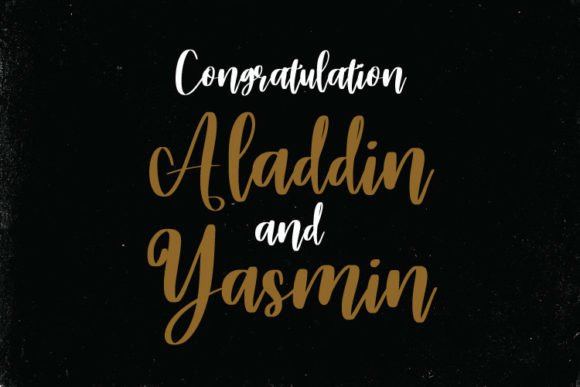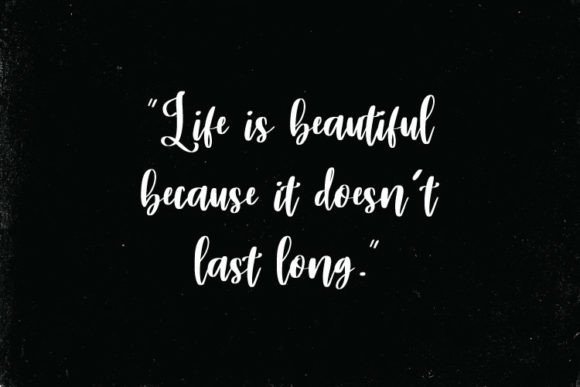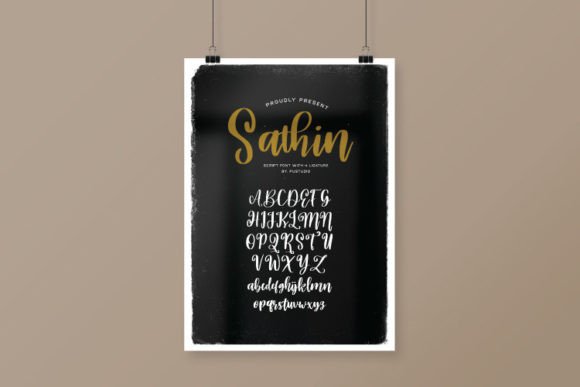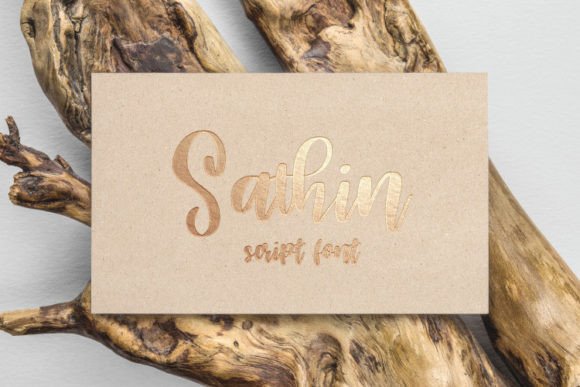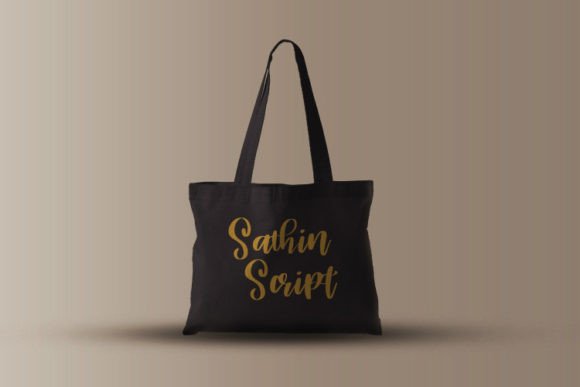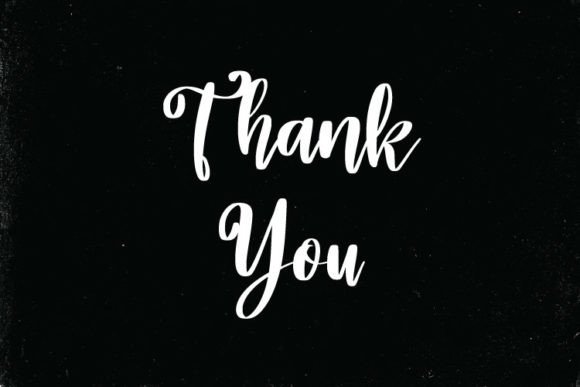
Introduction to Sathin Font
Have you ever sat down with a blank piece of paper, a pen, and a spark of creativity, only to be interrupted by the realization that you need to perfect that delicate handwritten touch? As designers, we’ve all been there – searching for that elusive font that captures the essence of elegance and charm. Enter Sathin Font, a game-changing design resource that brings a high-quality, handwritten feel to your creative projects.
Whether you’re crafting wedding invitations, designing quotes, or creating logos, Sathin Font is the perfect companion for any project that requires a touch of sophistication. With its free download option and transparent background, this versatile font is a design treasure trove waiting to be explored.
In this article, we’ll delve into the world of Sathin Font, uncovering its unique features and showcasing its value as a valuable resource for designers.
Key Features of Sathin Font
- High-quality design resource with a unique, elegant style suitable for creative projects
- Features a transparent background, allowing for seamless integration with any design
- Includes a wide range of characters, including uppercase and lowercase letters, numbers, and punctuation
- Designed with a high-resolution (300 DPI) for use in professional printing and digital applications
- Perfect for designers and artists looking for a high-quality, versatile font for their projects
- Can be used for a variety of purposes, from headings and titles to body text and creative compositions
Honest Review: Sathin Font
- What works well: ✨ The Sathin Font is a beautiful, elegant script font that adds a touch of sophistication to any design. The font’s unique characteristics make it perfect for creative projects that require a personal touch.
- What works well: ✨ The font’s transparent background allows for seamless integration with various design elements, making it a valuable resource for designers.
- What works well: ✨ The font is highly customizable, allowing designers to adjust the size, color, and style to suit their specific needs.
However, I did encounter a few limitations while using the Sathin Font. ⚠️ The font may not be suitable for projects that require a bold, sans-serif font, as it can appear too delicate in certain contexts.
Overall, I’m impressed with the Sathin Font and would highly recommend it to designers looking for a high-quality, free design resource. The font’s unique characteristics and versatility make it a valuable addition to any design toolkit.
To get the most out of Sathin Font, use it in conjunction with a transparent background to create a clean and modern design. You can also use the font in combination with other design elements to create a unique and eye-catching design. Common use cases for Sathin Font include logos, branding materials, and social media graphics.
Alternatives to Sathin Font
The Great Vibes Font is a high-quality, elegant script font that is perfect for creative projects that require a touch of sophistication. It’s available for free download and features a transparent background, making it easy to use in various design scenarios.
When to use: Wedding invitations, luxury branding, and high-end marketing materials.
Comparison to Sathin Font: Great Vibes Font has a more refined and elegant feel compared to Sathin Font, making it suitable for more formal projects.
Can I use the Sathin Font on a transparent background?
Yes, the Sathin Font has a transparent background, making it easy to use in designs that require a clear or semi-transparent font. This feature is especially useful for designers working on digital projects, such as web design or social media graphics.
What is the recommended resolution for using the Sathin Font?
For optimal results, we recommend using the Sathin Font at a resolution of 300 DPI or higher. This will ensure that the font appears crisp and clear in your design, regardless of the output size or medium.